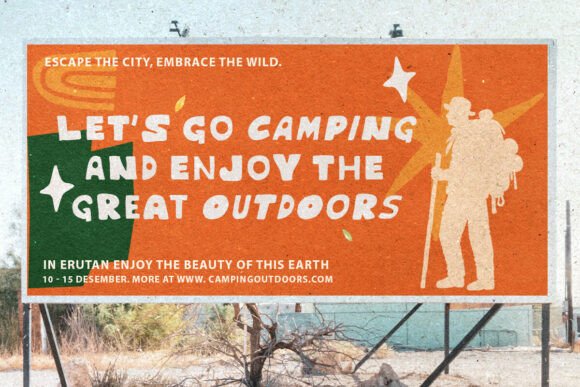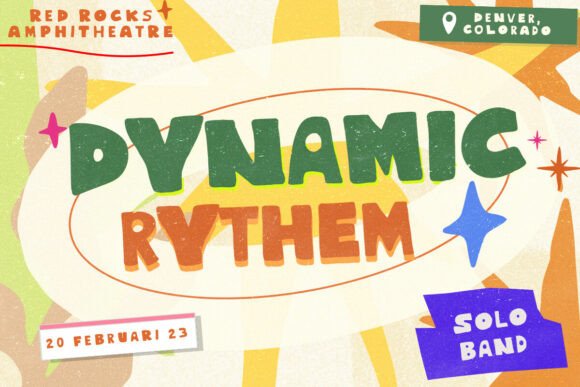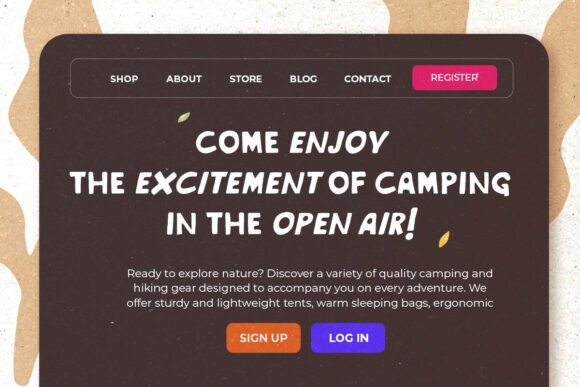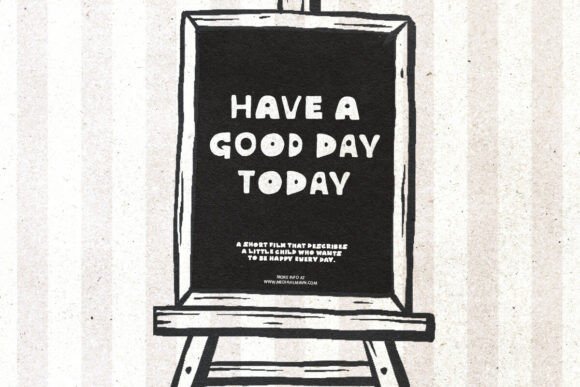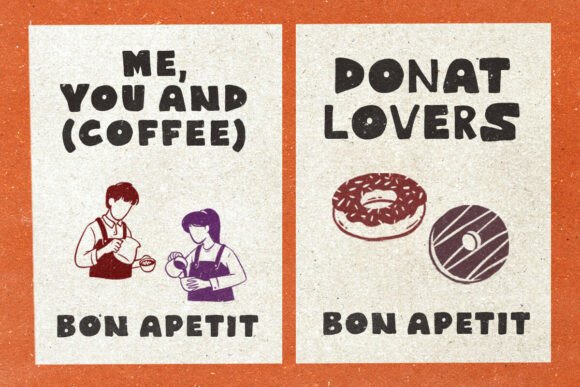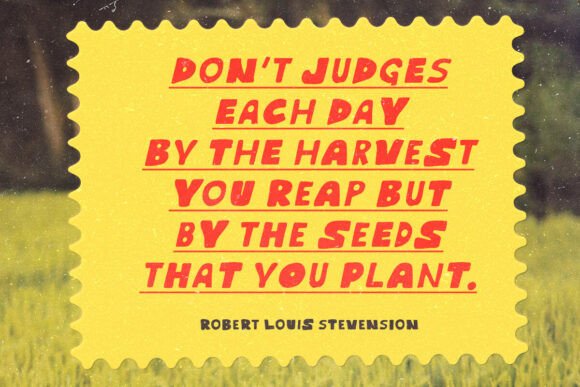
Introduction to Dessert Better Font
Dessert Better is a hand-drawn bold font with unique and natural shape.
With different weight and shape of the uppercase and lowercase, you can randomly use both in one word to make your design more standout and eye-catching You can use this font for any project such as branding, logotype, poster, quotes, or any design that need handmade looks.
Key Features of Dessert Better Font